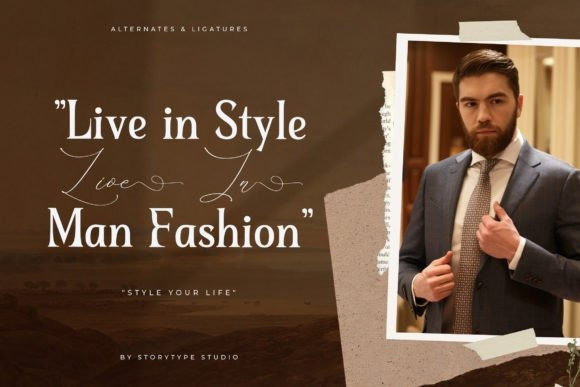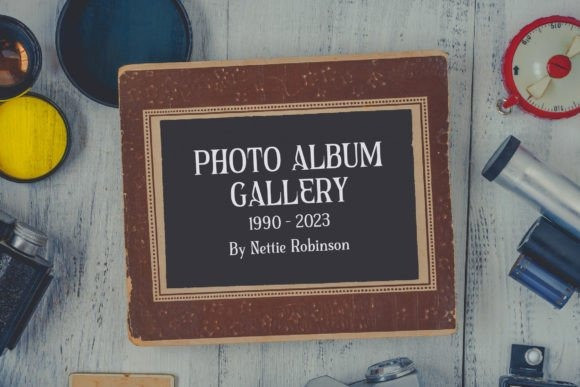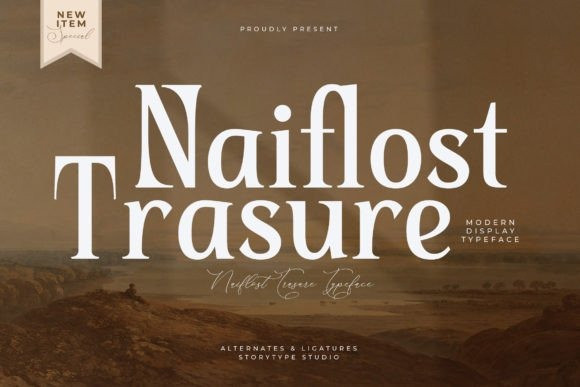
Naiflost Trasure Font
Naiflost Trasure Serif Font, created by Storytype, a serif modern and classic typeface that has own unique style & modern look.